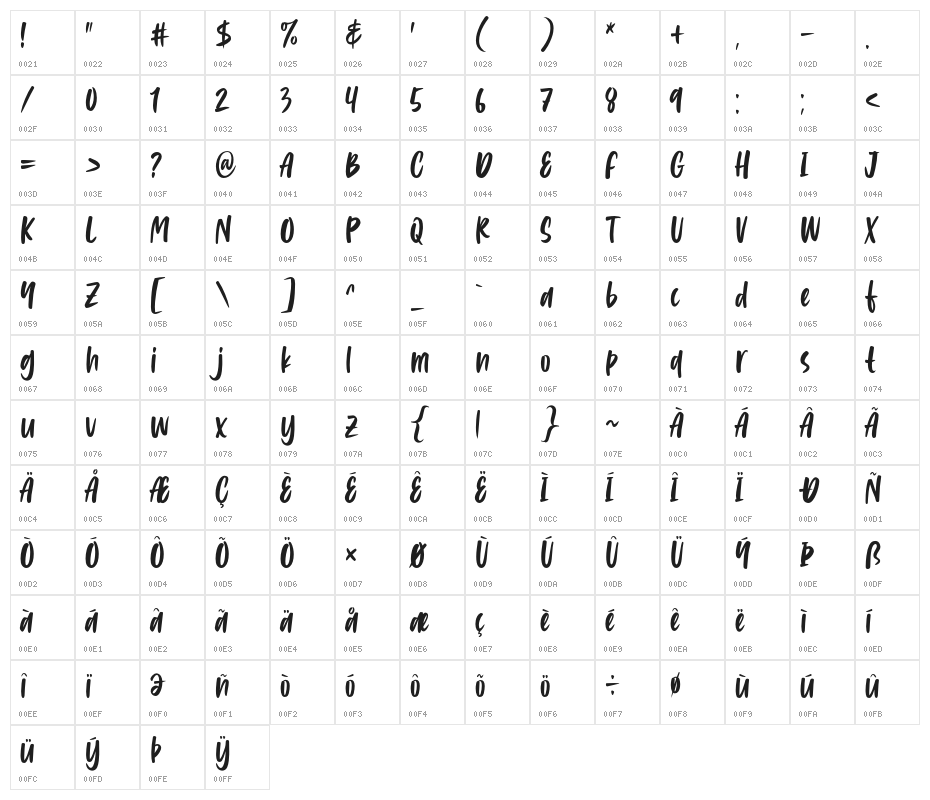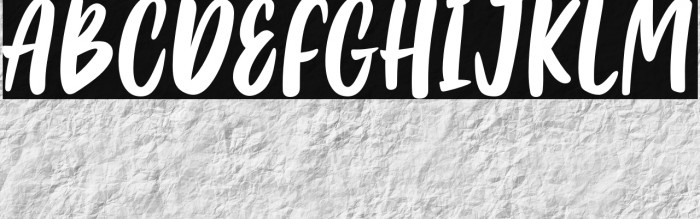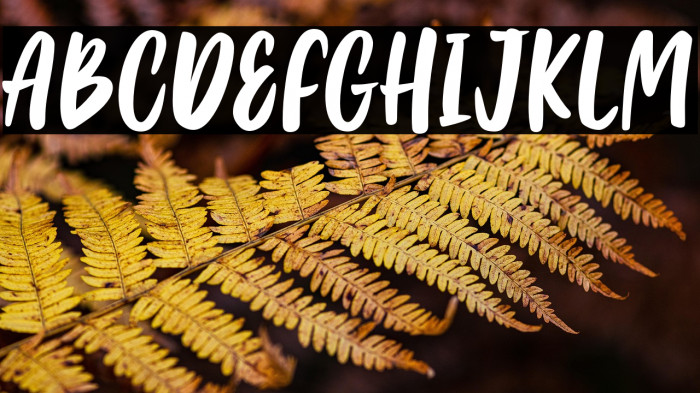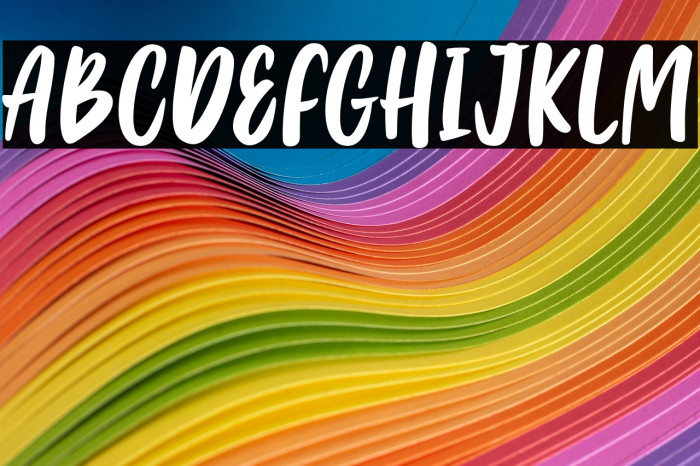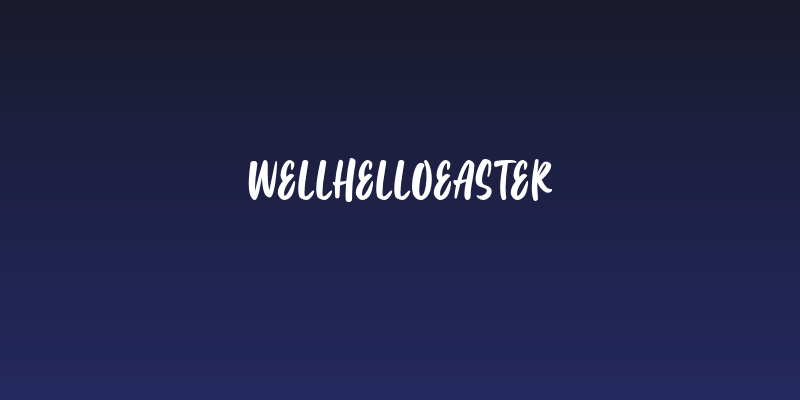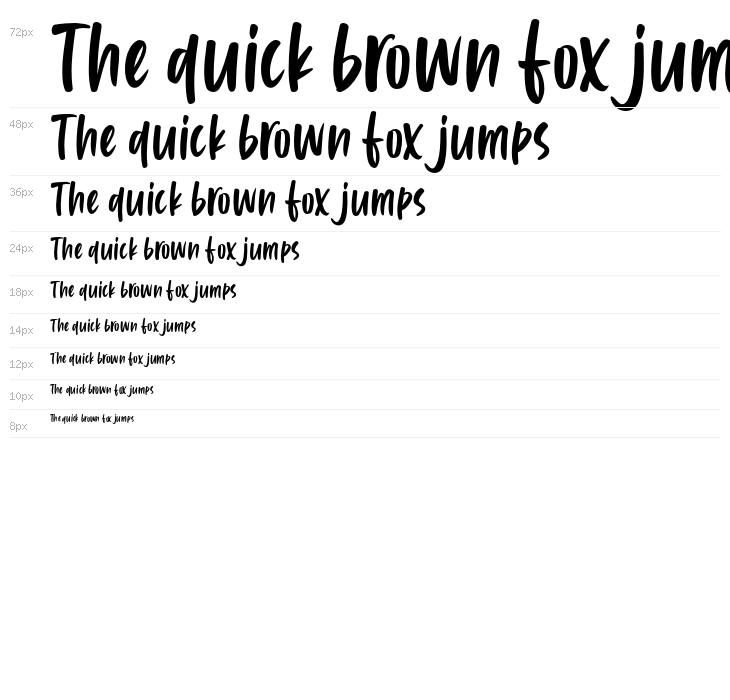
WellHelloEaster Font
WellHelloEaster Description
This font features a playful and energetic handwritten style with bold, sweeping strokes. The characters are slightly slanted, giving a dynamic and lively appearance. The uppercase letters are tall and commanding, while the lowercase letters maintain a consistent flow with rounded edges. Numbers and special characters follow the same energetic style, making them stand out. The overall design is informal and friendly, perfect for adding a personal touch to any project.
| Use Case | Logos, Headlines, Posters |
| Proposed Projects | Ideal for greeting cards, posters, social media graphics, and branding materials that require a personal and lively touch. |